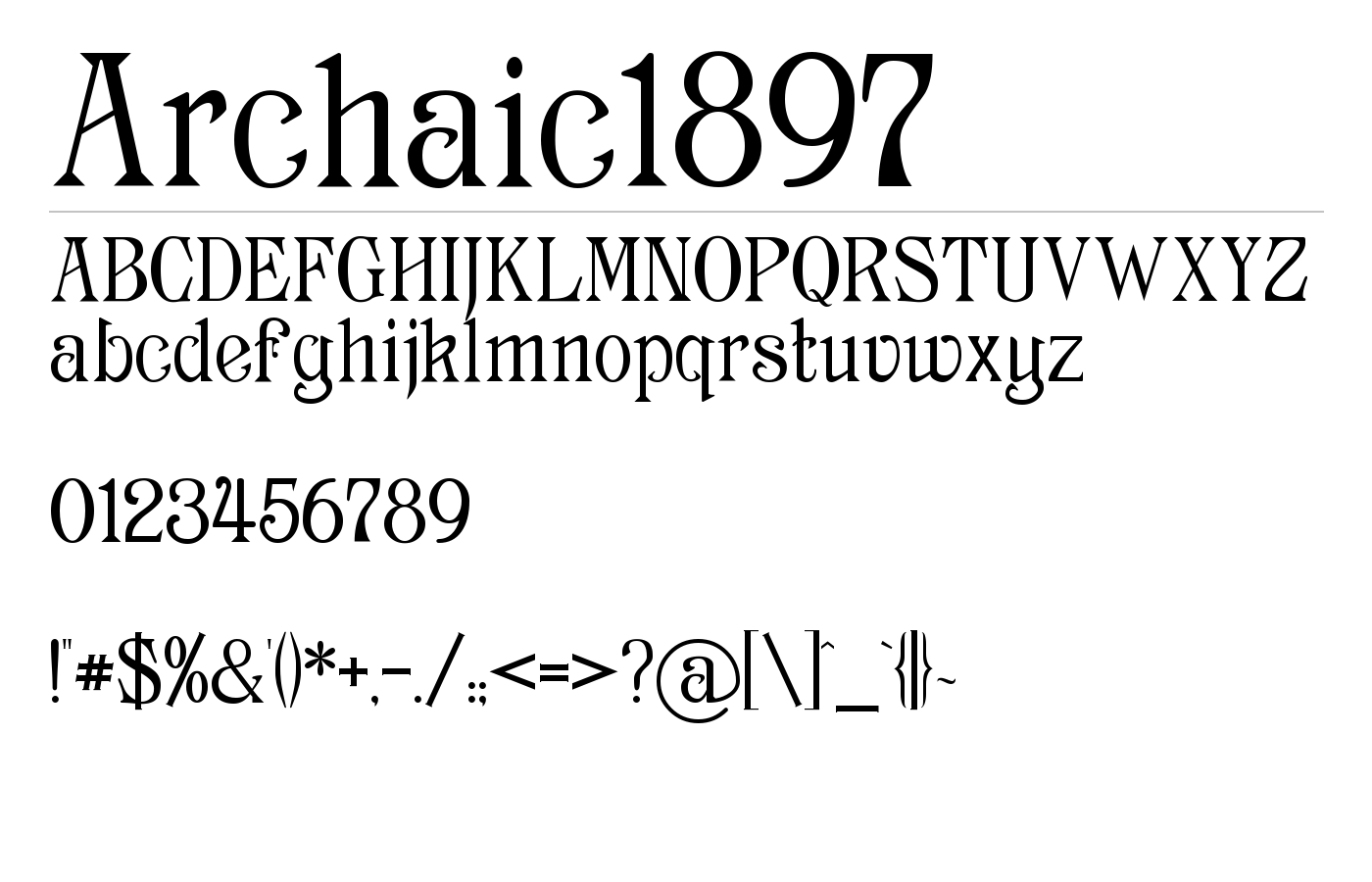
Archaic1897 is a slender serif typeface with a vintage, ornate character that combines sharp, angular serifs and slightly condensed letterforms for a refined yet old-fashioned feel. Its high contrast between thick and thin strokes and distinctively stylized details give it a sense of elegance and historical charm, making it ideal for decorative headlines, classic branding, and editorial use where a touch of sophistication and uniqueness is desired. This font communicates a serious, timeless personality perfectly suited for luxury or heritage-inspired design projects.
Archaic1897 Font
About Archaic1897 Font